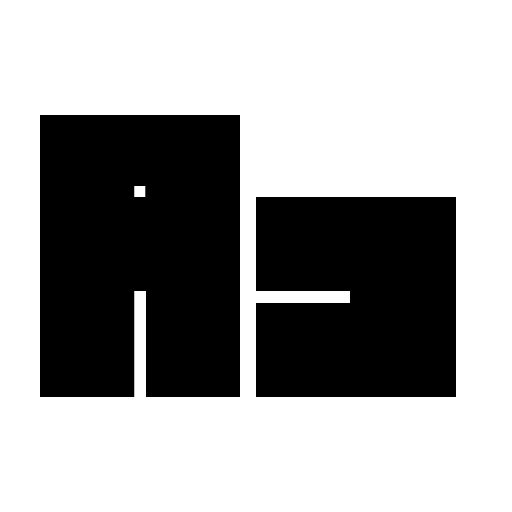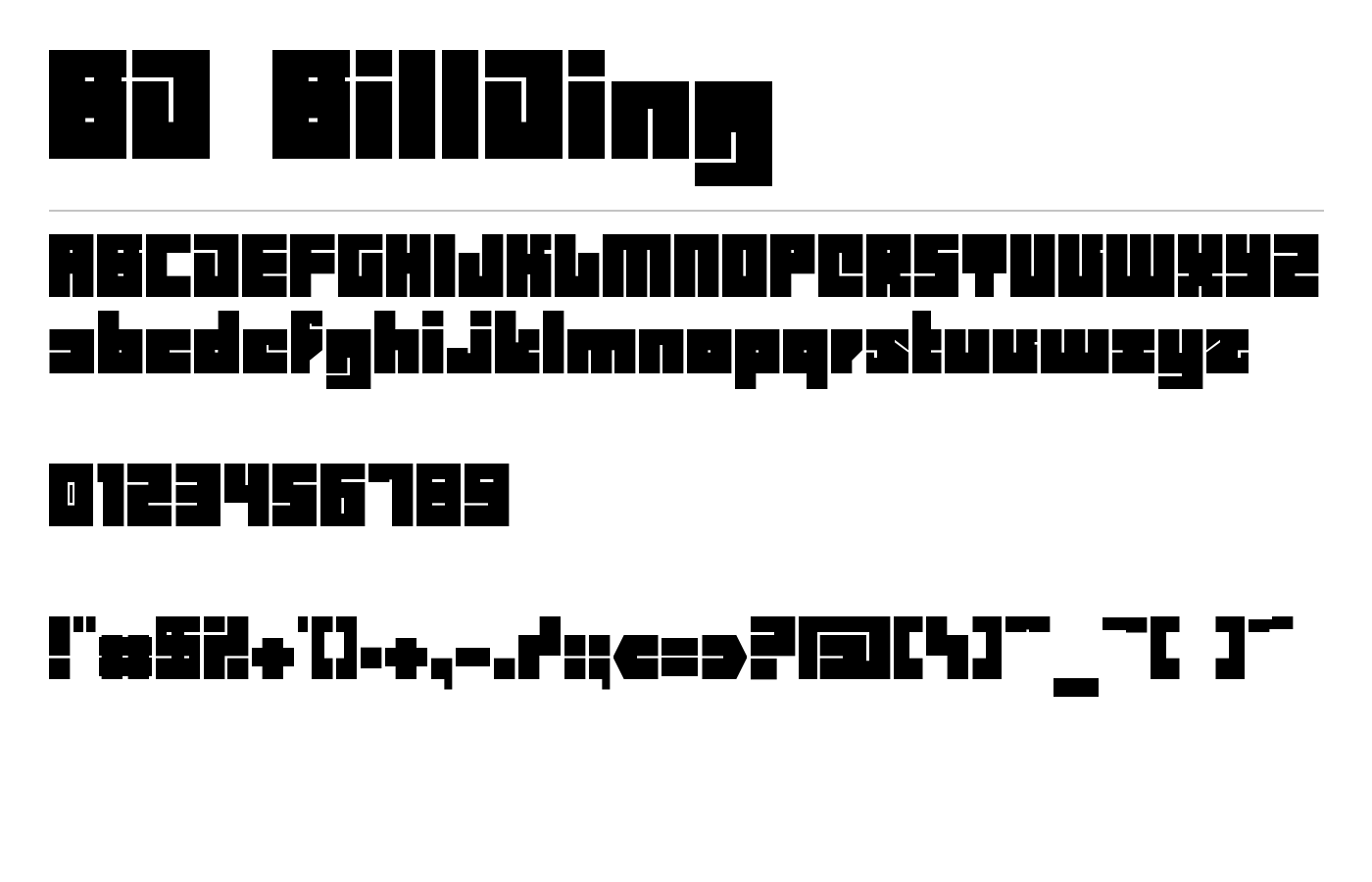
BD BillDing is a bold, blocky sans serif font with a strong geometric structure and a high visual impact. Its heavy weight and condensed width give it a powerful, industrial feel, making it ideal for headlines, logos, and designs that require a modern, edgy, and urban look. This font works best where a striking, attention-grabbing style is needed, especially in branding and posters.
BD BillDing Font
About BD BillDing Font